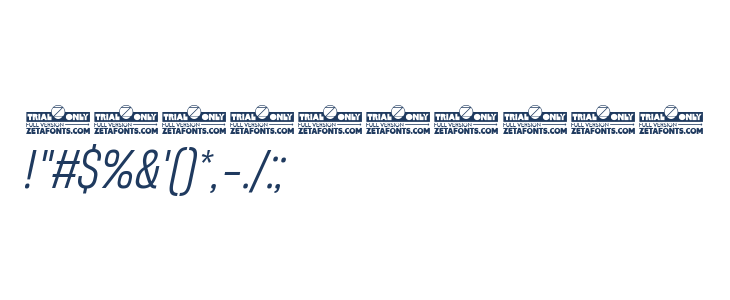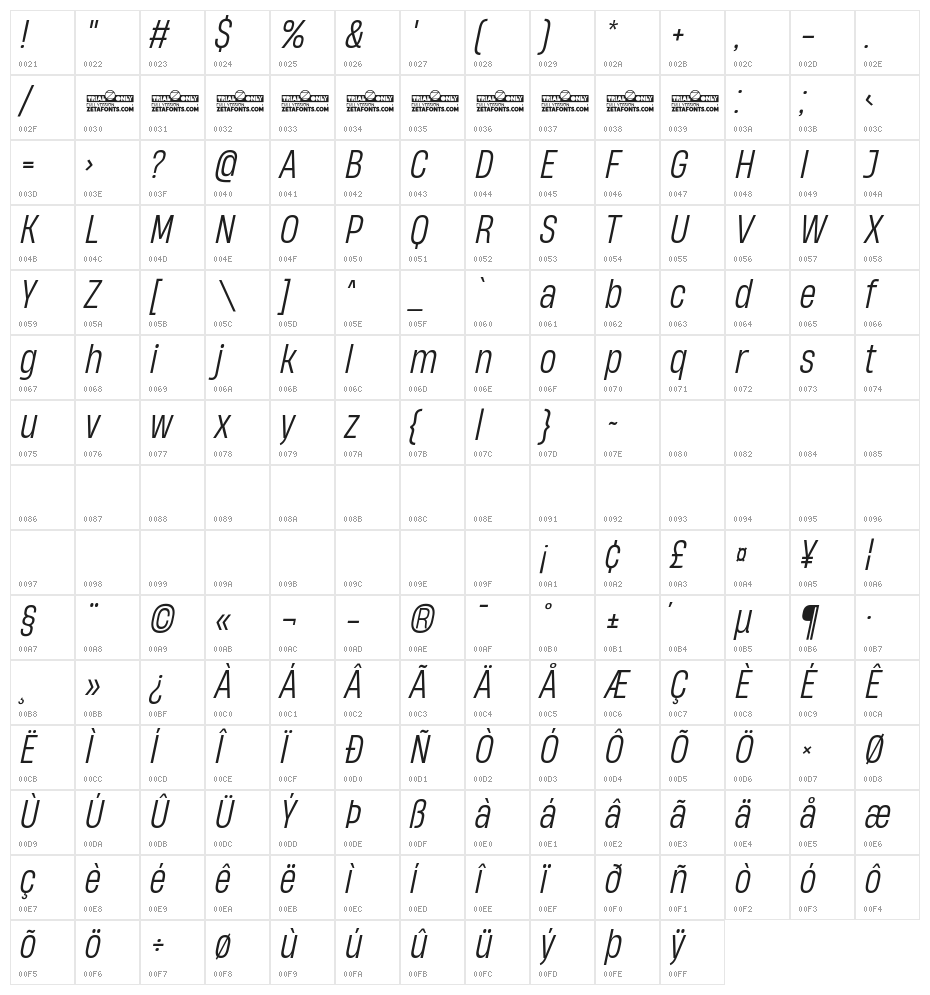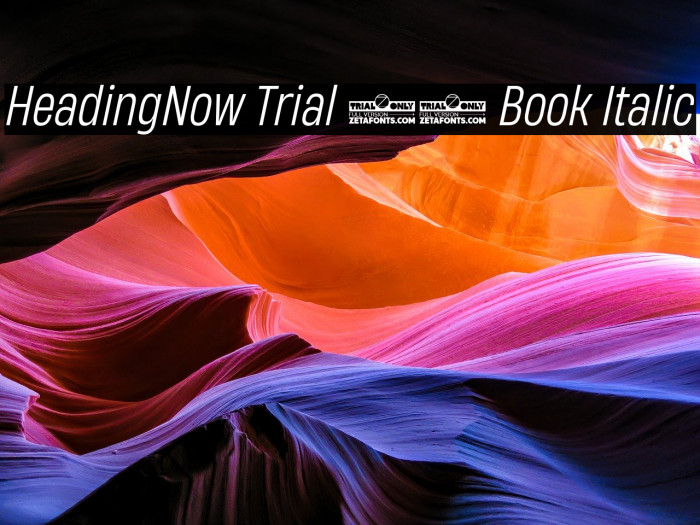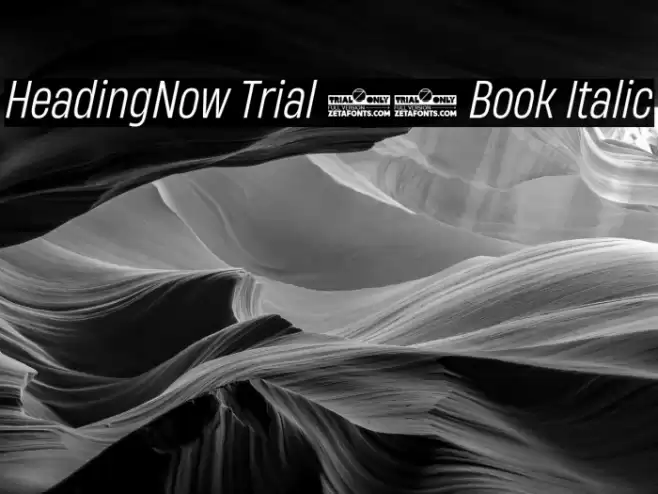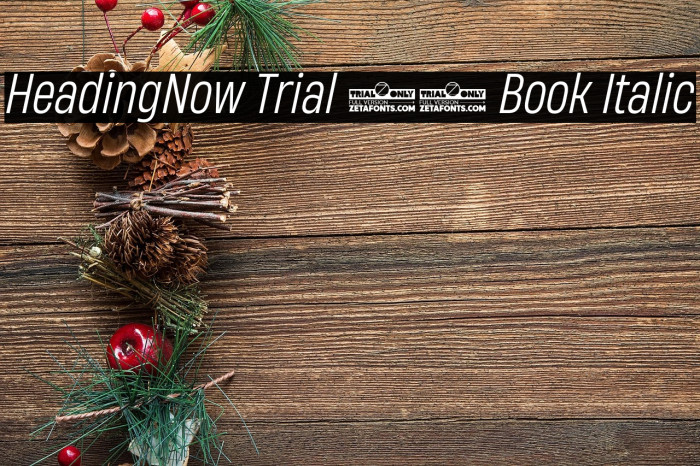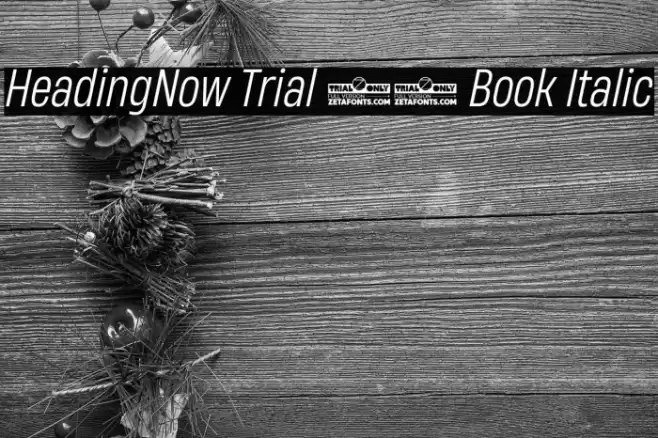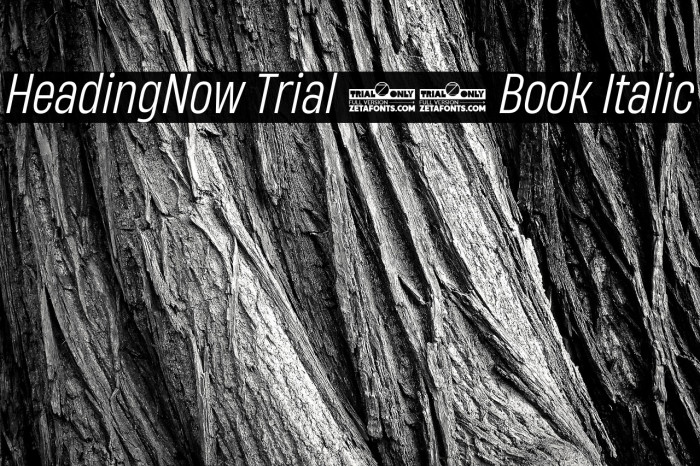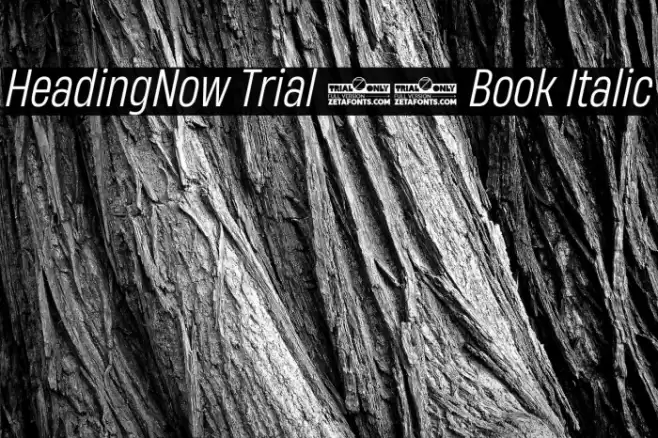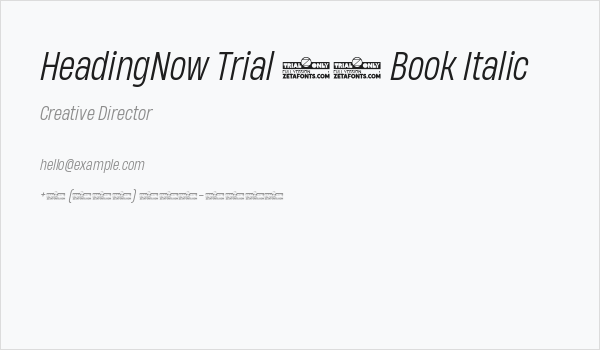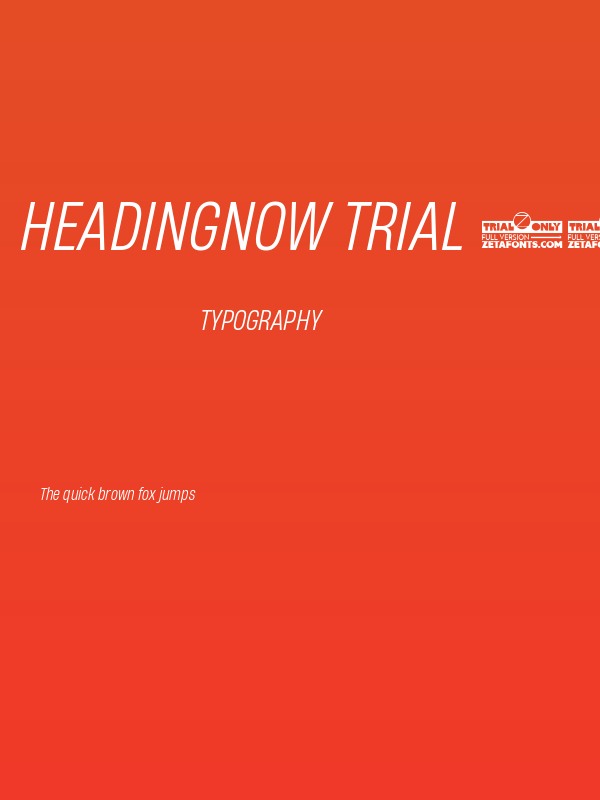
HeadingNow Trial 53 Book Italic Font
HeadingNow Trial 53 Book Italic Description
This font features a sleek and modern design with a slight italic slant, giving it a dynamic and forward-moving appearance. The characters are elongated with a consistent stroke width, providing a clean and professional look. The uppercase letters are tall and narrow, while the lowercase letters maintain a harmonious balance with slightly rounded edges. The numerals are clear and easy to read, making them suitable for various applications. Special characters are well-defined, adding versatility to the font's use. Overall, this typeface exudes a contemporary and stylish vibe, perfect for modern design projects.